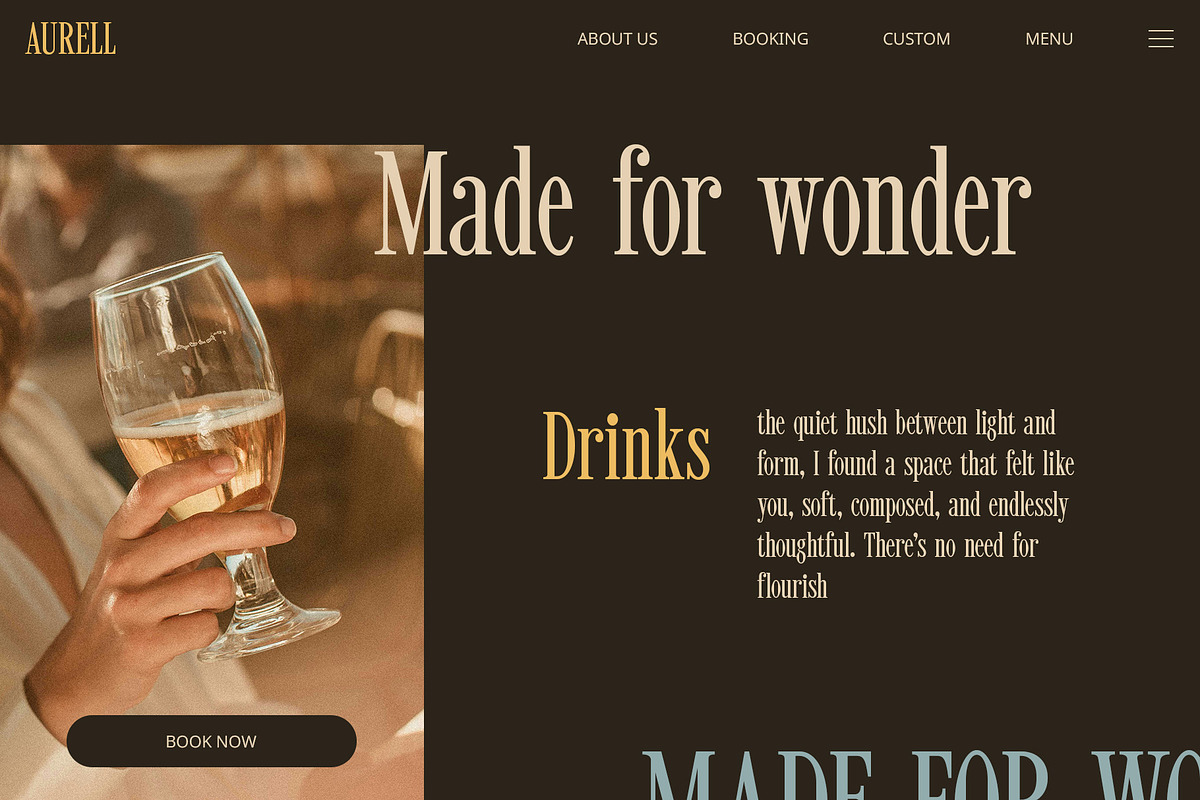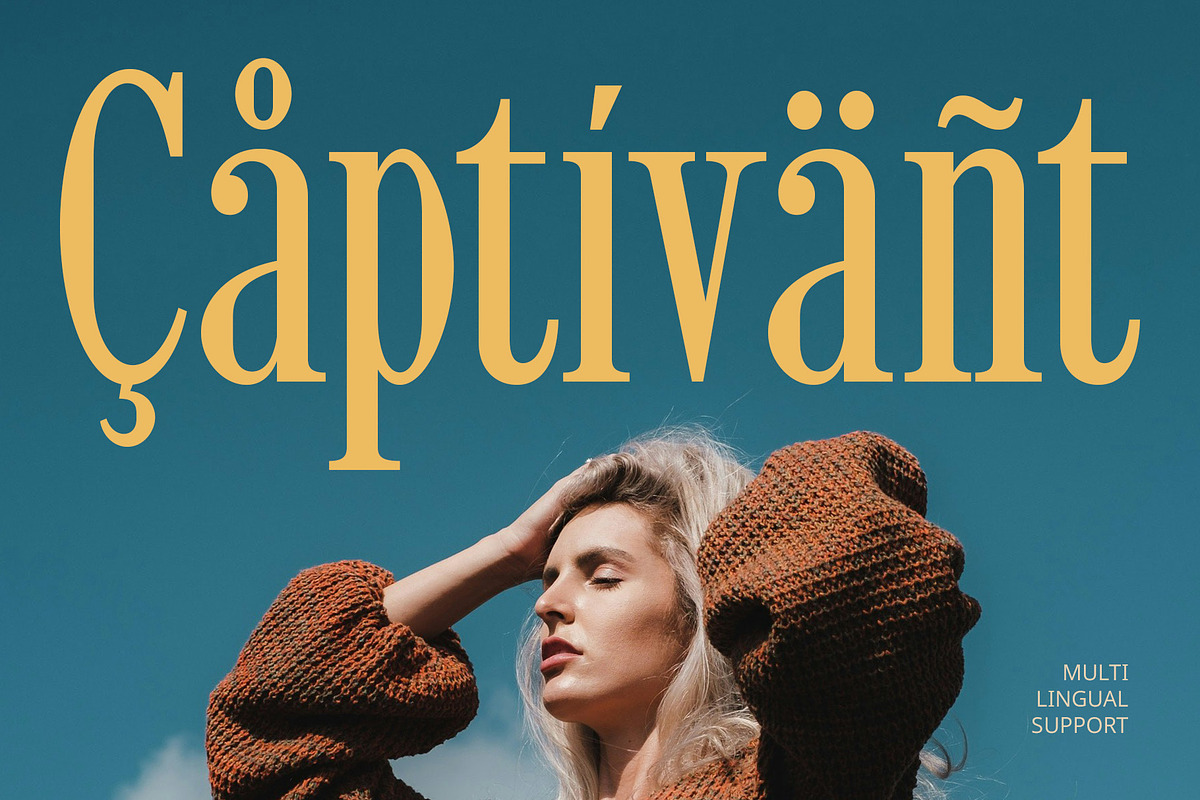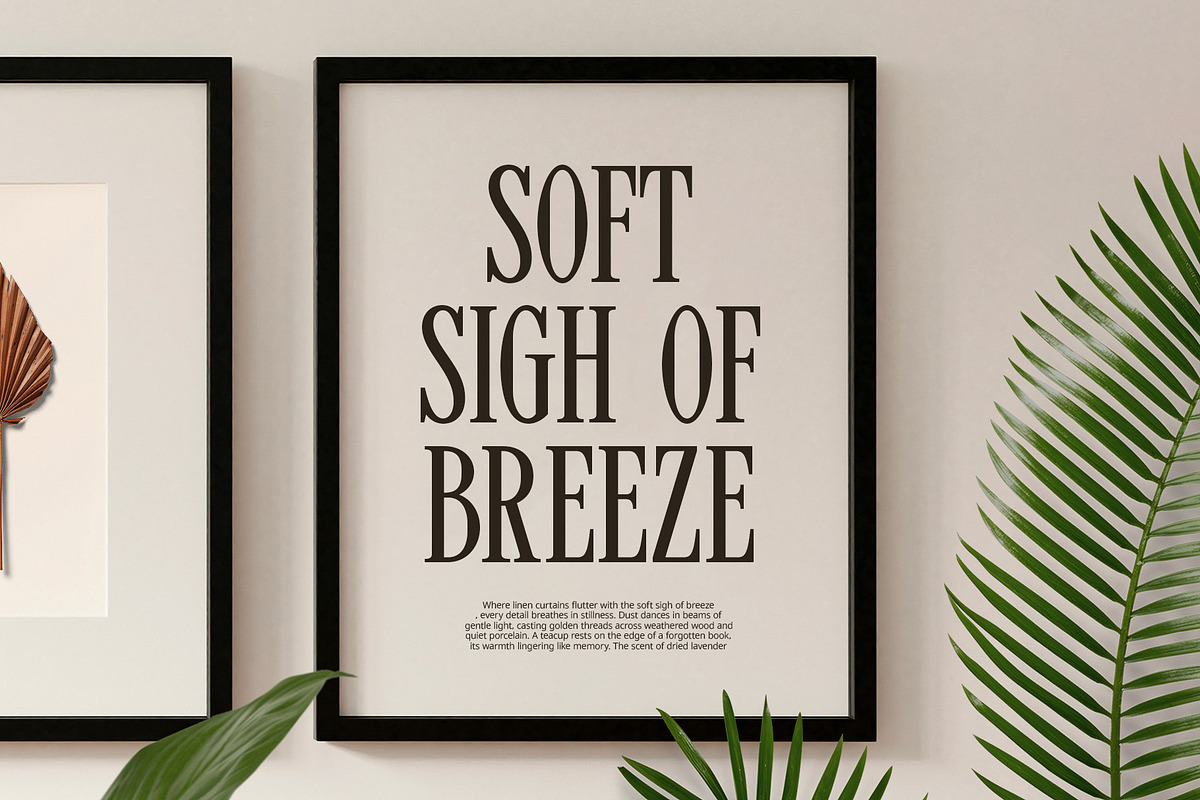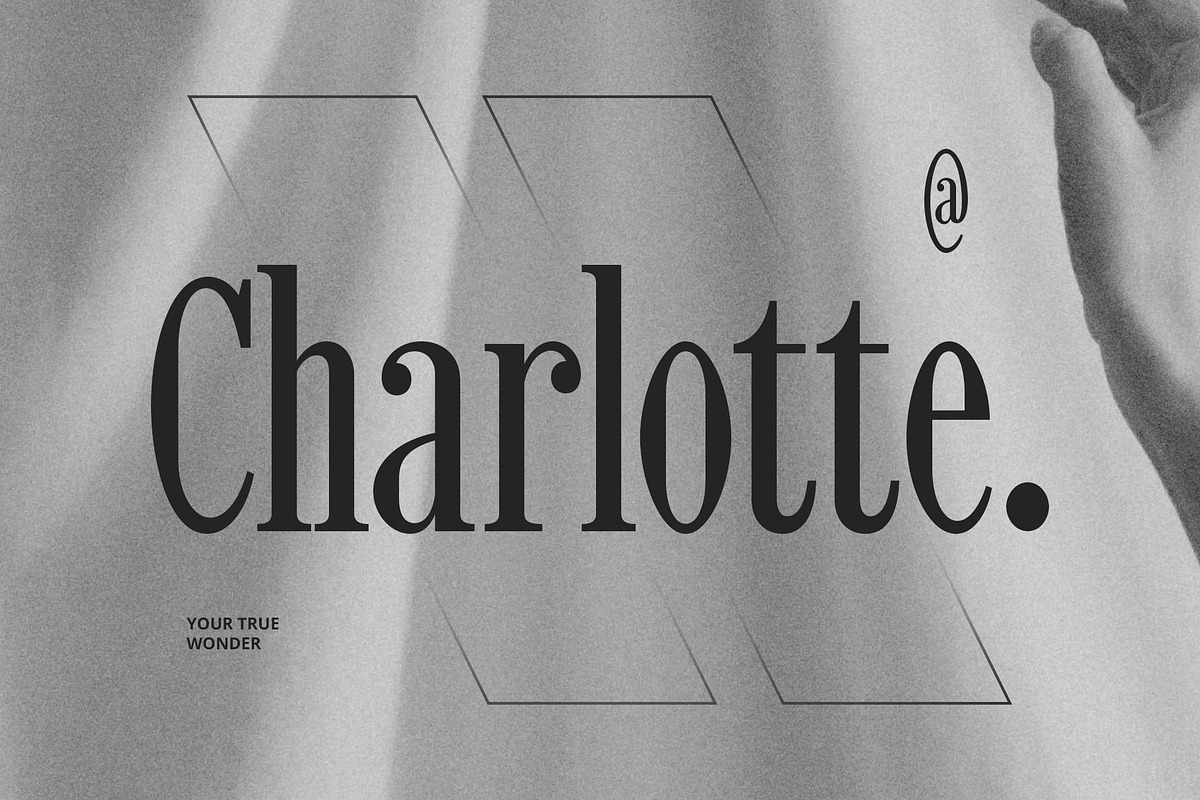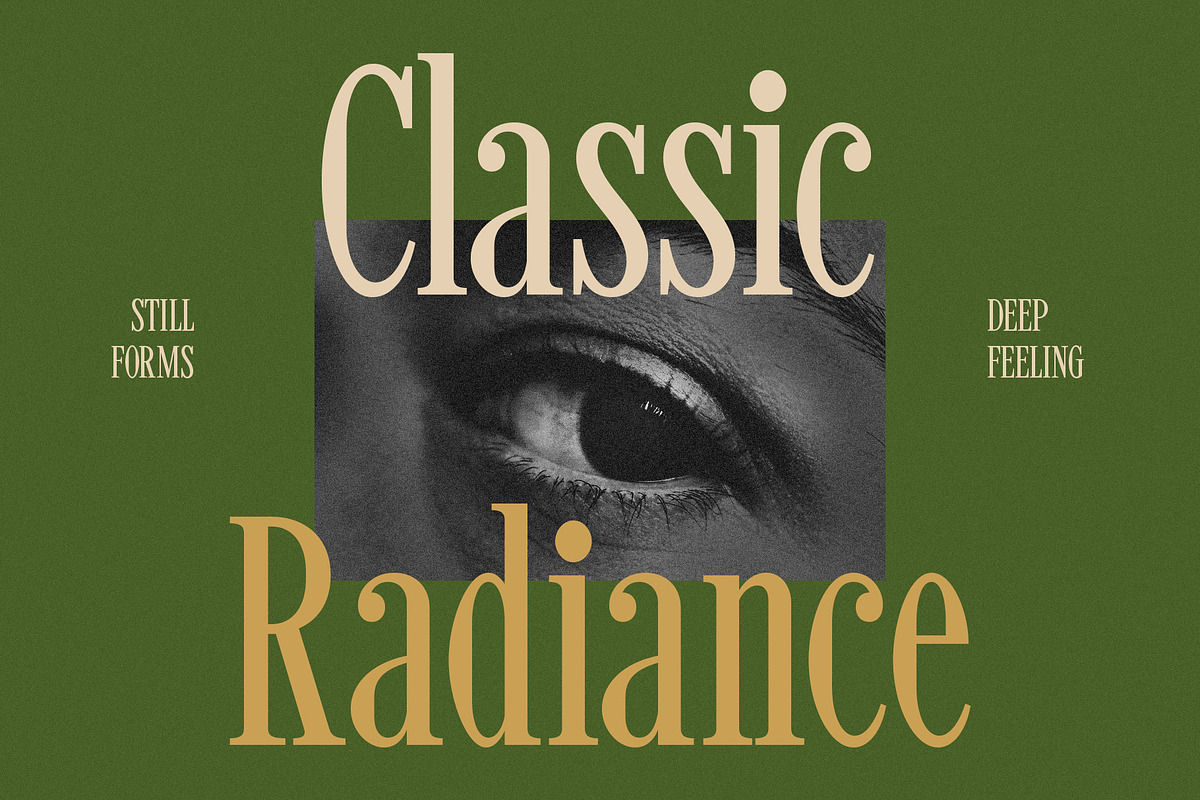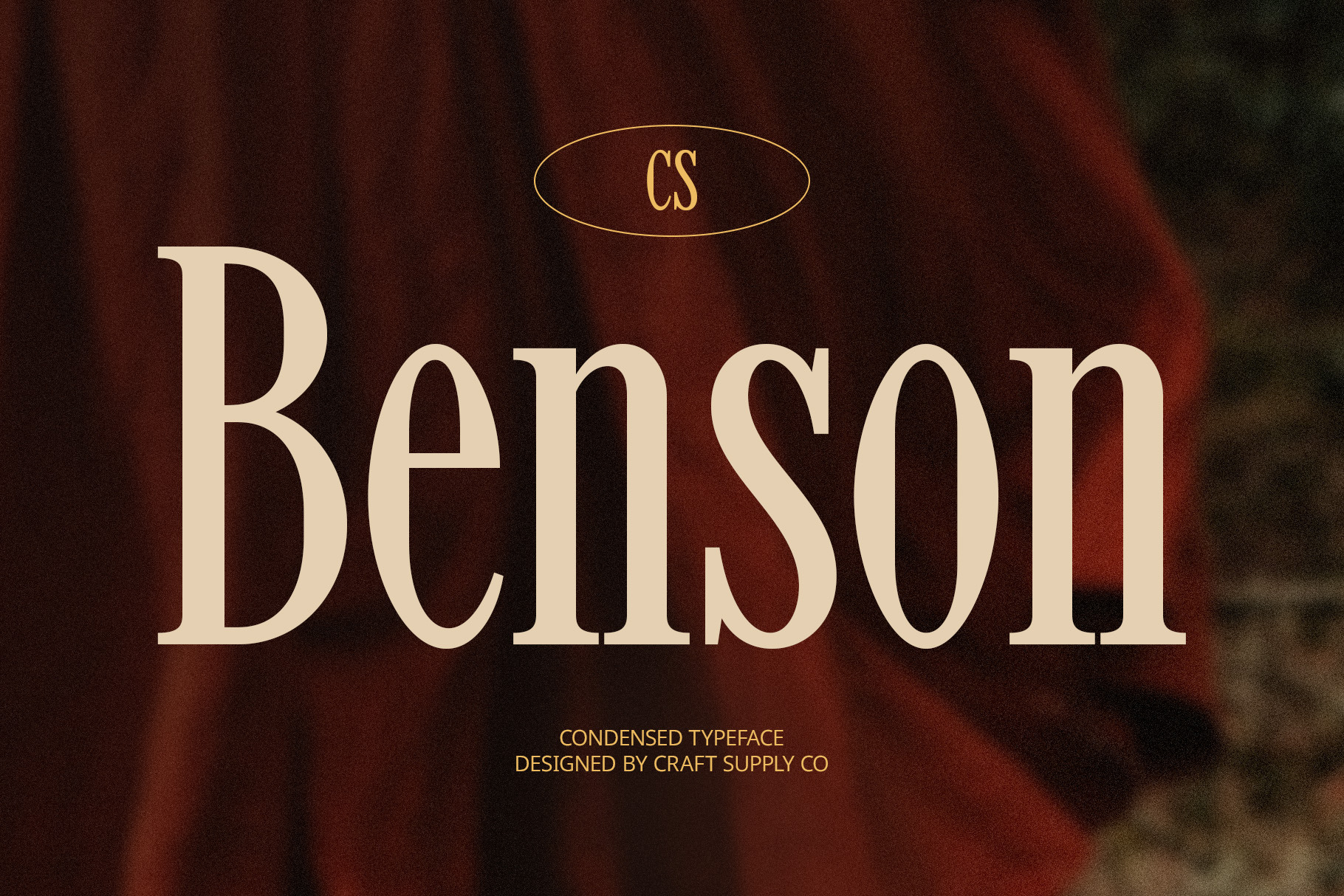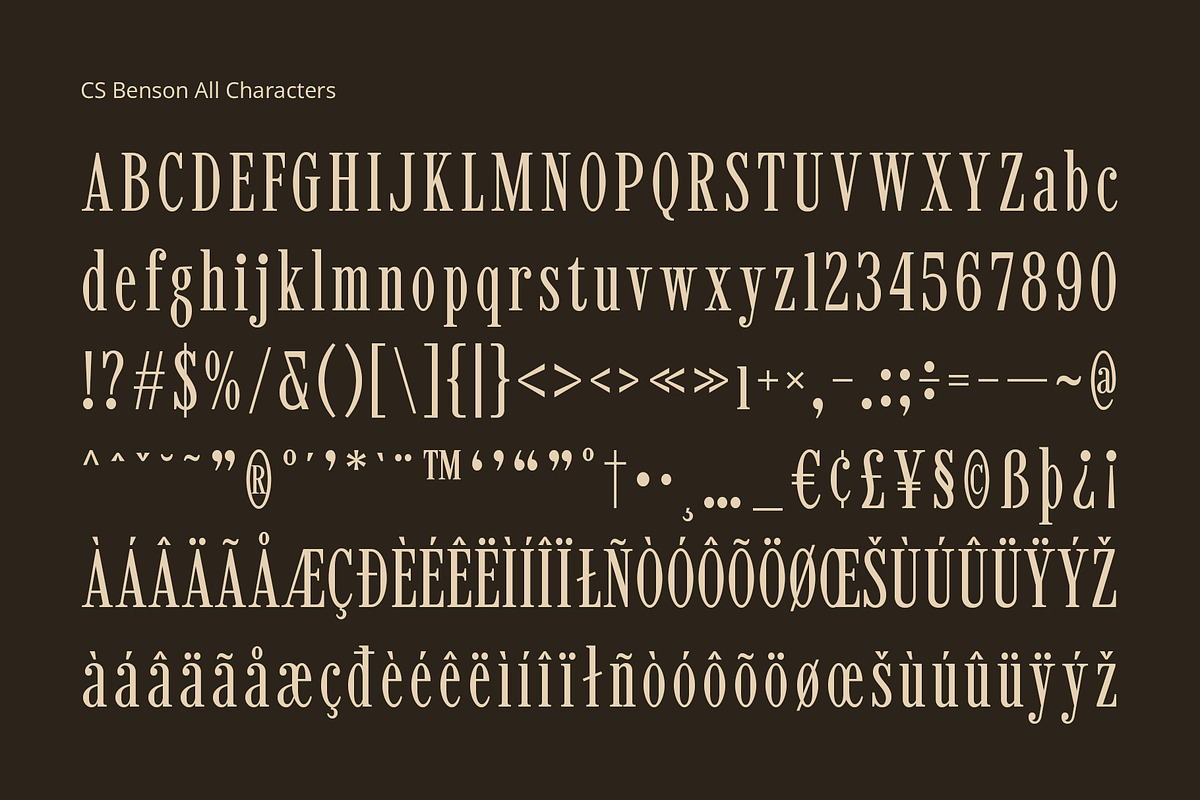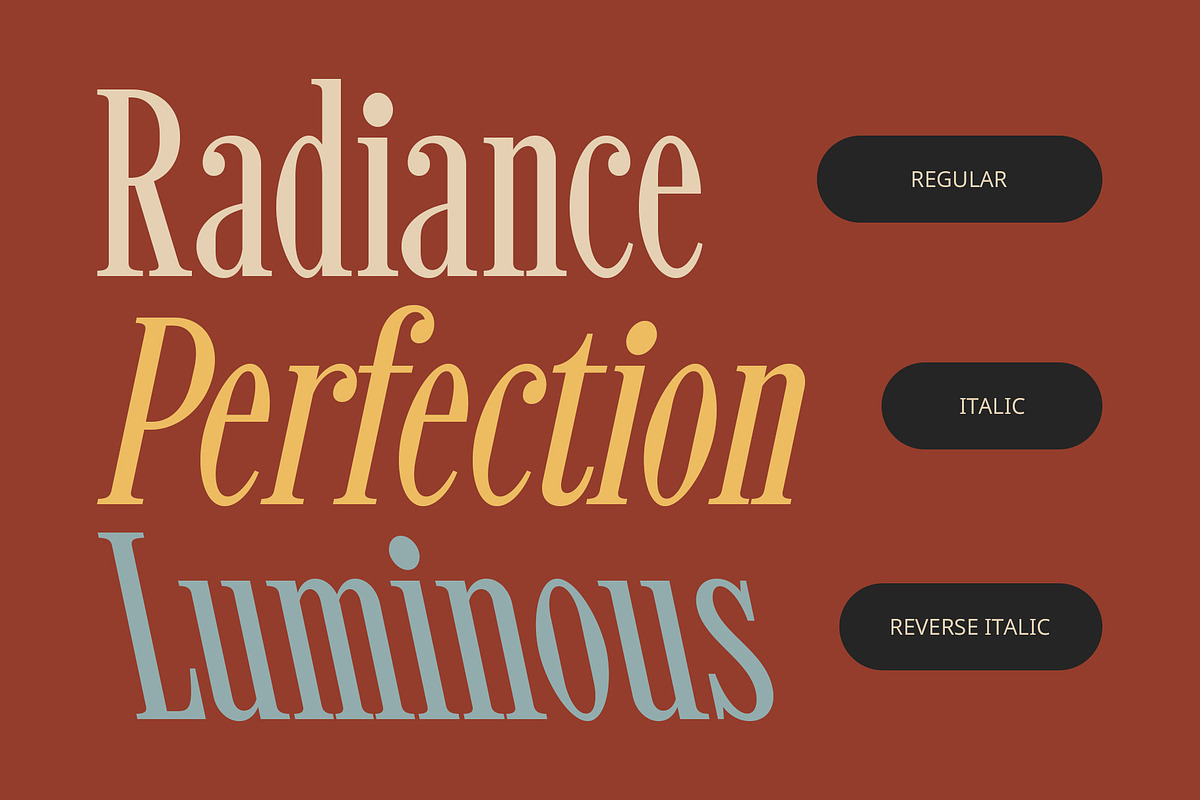
CS Benson – Classic Font
CS Benson – Classic Font: Timeless Elegance in a Modern Form
Clean and Condensed Serif Structure CS Benson is a modern serif font designed with a clean, slim, and condensed shape. Its tall, narrow proportions are optimized for clarity and space efficiency, making it a strong choice for layouts where elegance and readability are essential. This font seamlessly merges a modern typographic aesthetic with classic serif elements, giving it both sophistication and approachability.
Refined and Professional Look The refined serif detailing and minimalist structure of CS Benson deliver a professional, graceful tone. Its consistent rhythm and thoughtful spacing allow for easy reading while maintaining an elevated visual presence. Whether used in large headlines or detailed editorial copy, it ensures content appears polished and well-structured.
Perfect for Editorial and Branding Use Ideal for magazines, books, fashion editorials, and product branding, CS Benson enhances any project that calls for a sophisticated and timeless appeal. Its slim form is especially suited for high-end and luxury-focused designs, where elegance and clarity must coexist.
Balancing Tradition with Modern Style By blending classic serif influence with modern proportions, CS Benson offers the best of both worlds. It feels fresh and relevant while honoring traditional typography, making it a versatile typeface for contemporary creatives who want to infuse their designs with lasting style and elegance.